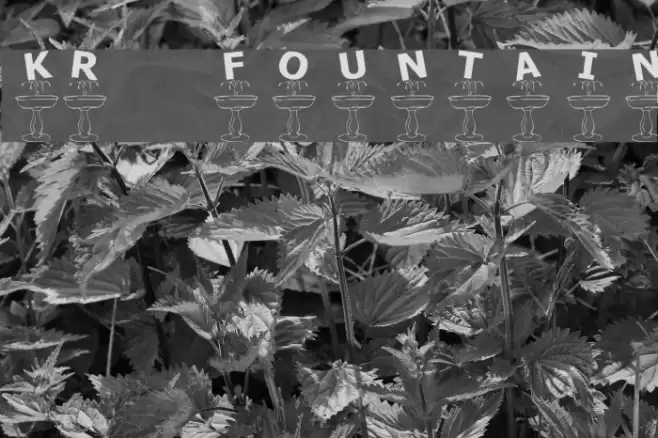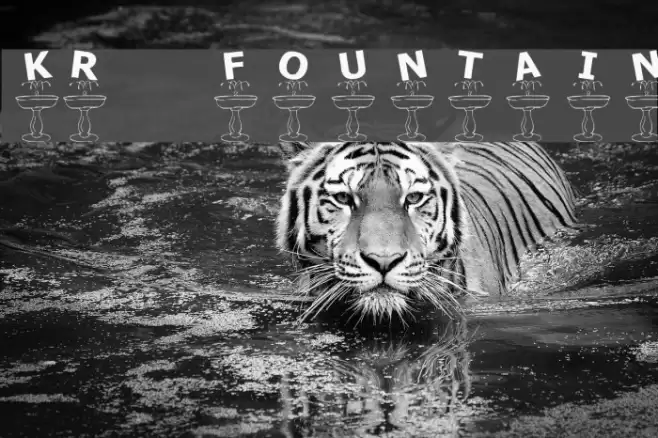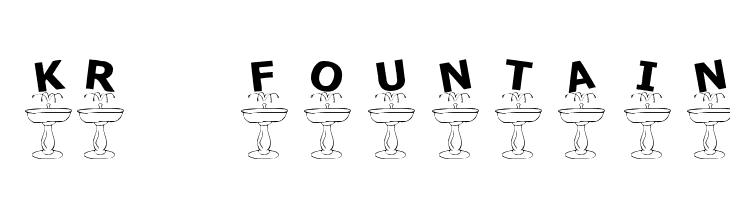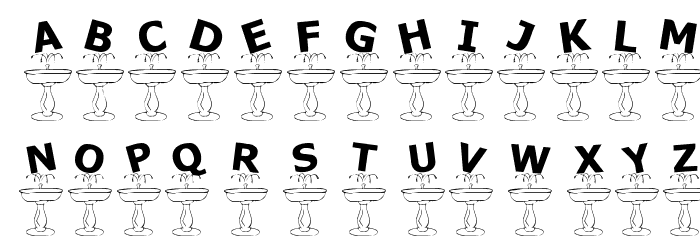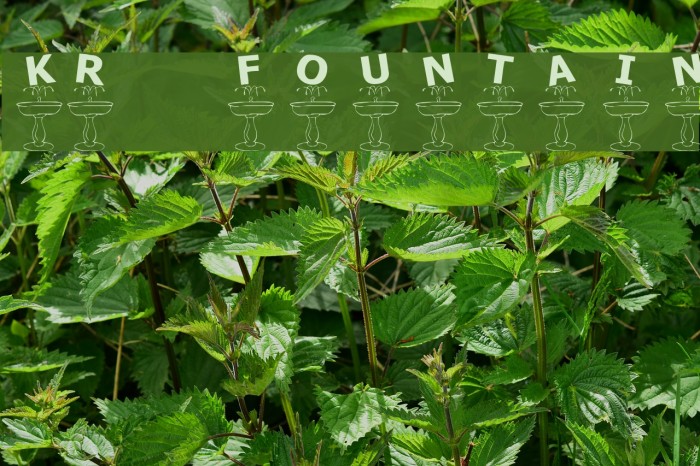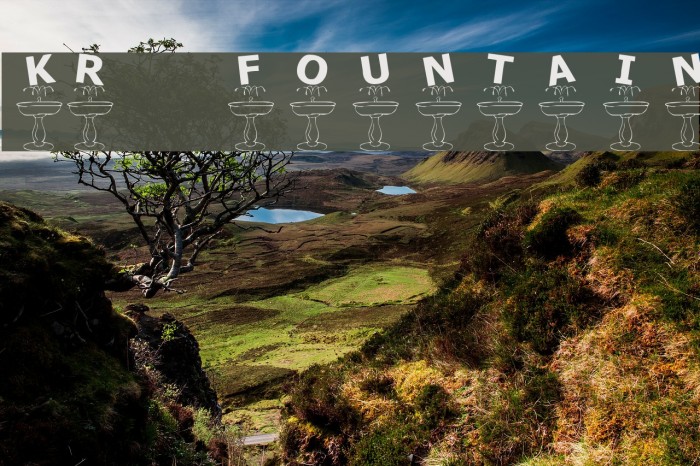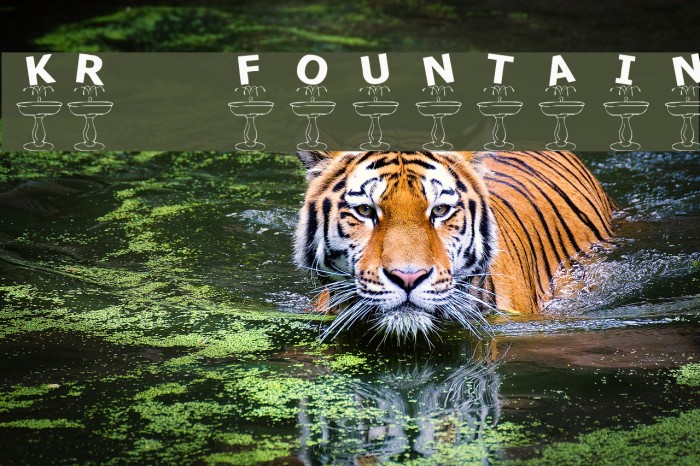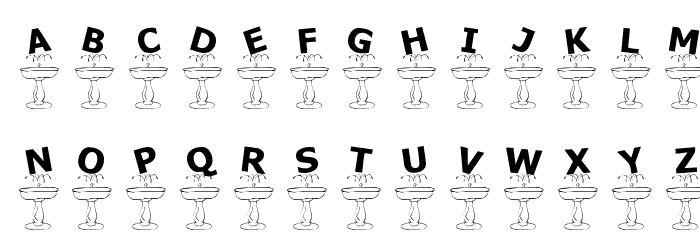
KR Fountain Font
KR Fountain Description
This playful and whimsical font features each letter perched atop a stylized fountain, creating a unique and eye-catching design. The letters are bold and slightly tilted, adding a sense of movement and fun. The fountains beneath each character are detailed, with water spouts adding to the dynamic feel. This font is perfect for projects that require a touch of humor or creativity, such as children's books, playful branding, or event invitations. The combination of bold lettering and decorative elements makes it stand out, ensuring that any message is conveyed with flair.
A whimsical font with bold letters atop decorative fountains from Uncategorized fonts.
- Proposed Projects: Ideal for children's books, playful branding, event invitations, and creative posters.